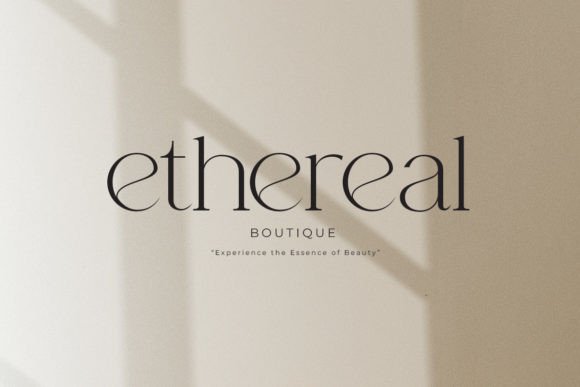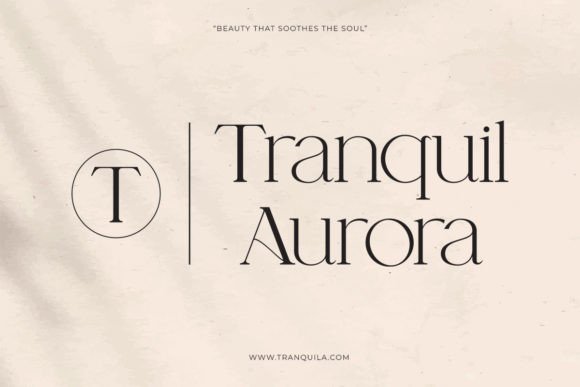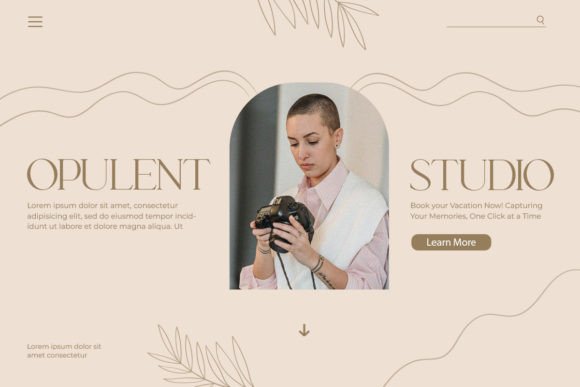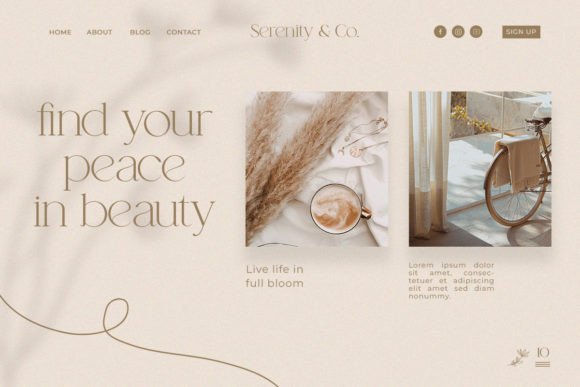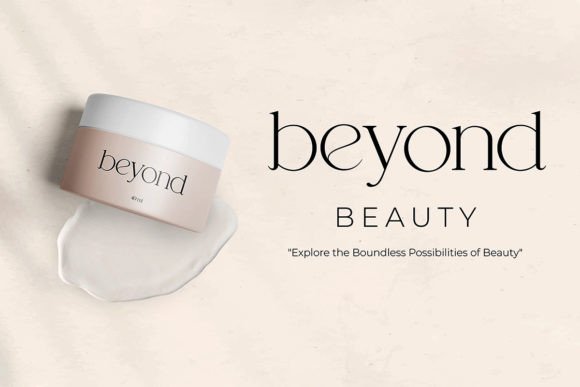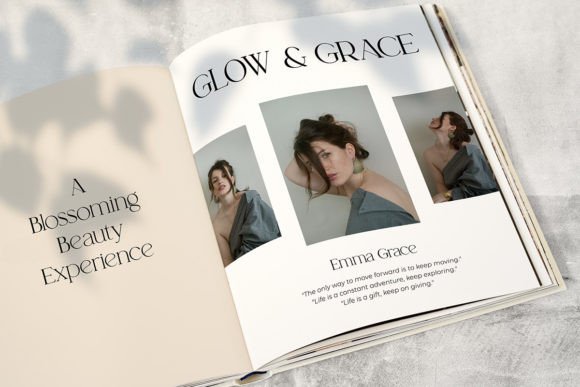
Eve of Ocean Font: Elevate Your Designs with Elegance and Sophistication
In the world of typography, fonts play a crucial role in conveying the tone and personality of a design project. For designers and crafters seeking to add a touch of luxury and style to their work, the Eve of Ocean font is an excellent choice. This elegant and modern serif font is designed to make a lasting impression, making it perfect for a range of design projects, from wedding invitations to fashion magazines and promotional posters.
The Essence of Eve of Ocean Font
Eve of Ocean is a masterpiece of typographic design, boasting a harmonious balance of firmness and grace. Its serif design adds a touch of sophistication and elegance, making it an ideal choice for designers who want to create visually stunning designs. The font’s modern impression is perfect for those seeking to add a fresh and contemporary twist to their work.
Key Features of Eve of Ocean Font
- Elegant and Modern Design: Eve of Ocean features a sleek and contemporary design that is sure to make your designs stand out.
- Serif Font: The font’s serif design adds a touch of sophistication and elegance, making it perfect for designs that require a level of luxury and style.
- Harmonious Balance: The font’s harmonious balance of firmness and grace makes it suitable for a range of design projects.
- Readability and Accessibility: Eve of Ocean is designed to be highly readable and accessible, making it perfect for both print and digital designs.
Design Applications for Eve of Ocean Font
Eve of Ocean is a versatile font that can be used for a wide range of design projects, including:
- Wedding Invitations: Add a touch of elegance and sophistication to your wedding invitations with Eve of Ocean.
- Fashion Magazines: Use Eve of Ocean to create visually stunning fashion magazines that exude luxury and style.
- Promotional Posters: Make a lasting impression with Eve of Ocean, perfect for promotional posters that require a level of sophistication.
- Digital Designs: Eve of Ocean is perfect for digital designs, including website headers, social media graphics, and more.
Why Choose Eve of Ocean Font?
With so many fonts available, why choose Eve of Ocean? Here are just a few reasons why designers and crafters love this elegant serif font:
- Unique and Distinctive: Eve of Ocean is a unique and distinctive font that will make your designs stand out from the crowd.
- Highly Versatile: The font’s versatility makes it suitable for a wide range of design projects.
- Elegant and Sophisticated: Eve of Ocean adds a touch of elegance and sophistication to any design project.
In conclusion, Eve of Ocean font is an excellent choice for designers and crafters seeking to add a touch of luxury and style to their work. Its elegant and modern design, harmonious balance of firmness and grace, and high readability and accessibility make it perfect for a range of design projects. Whether you’re creating wedding invitations, fashion magazines, or promotional posters, Eve of Ocean is sure to make a lasting impression.